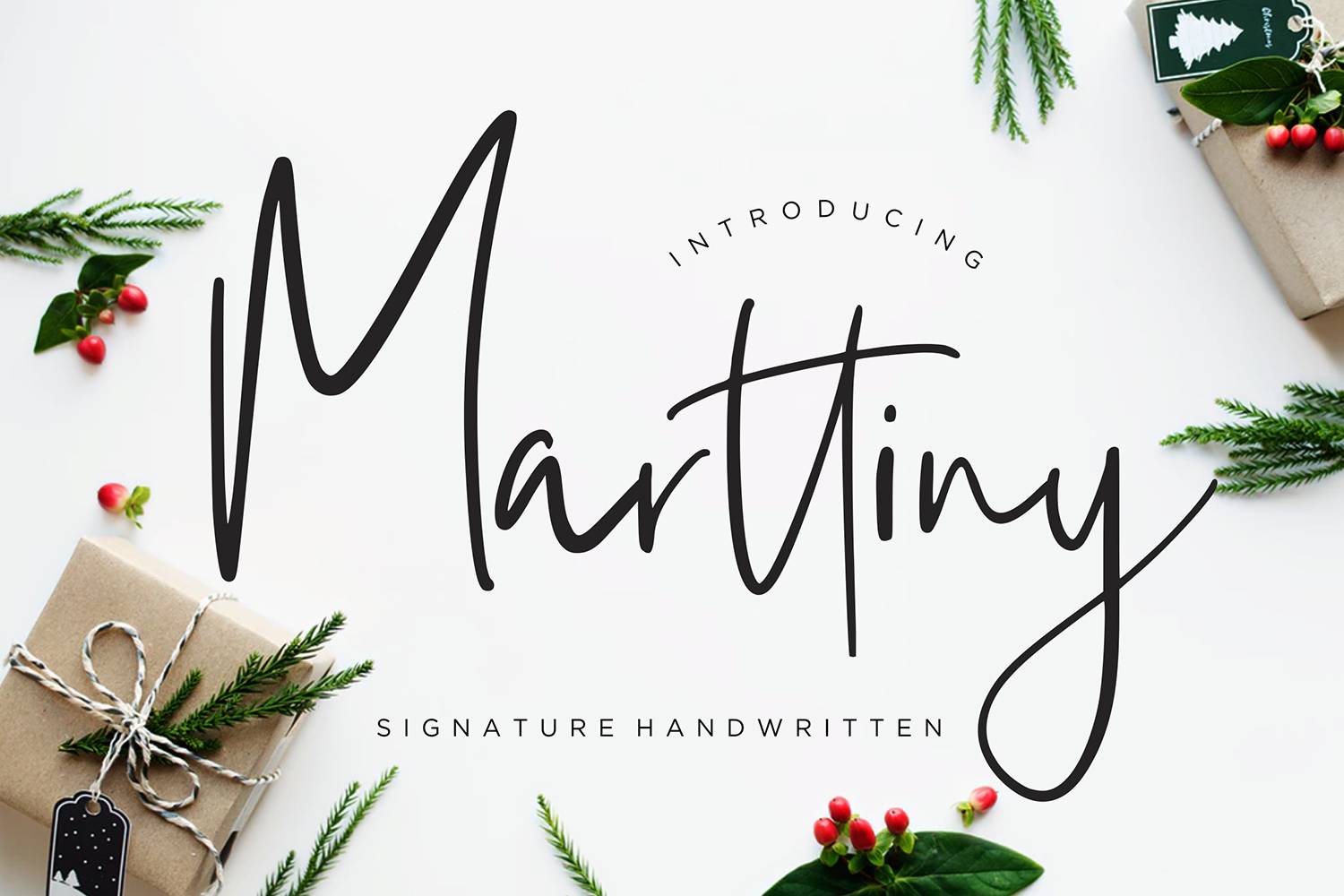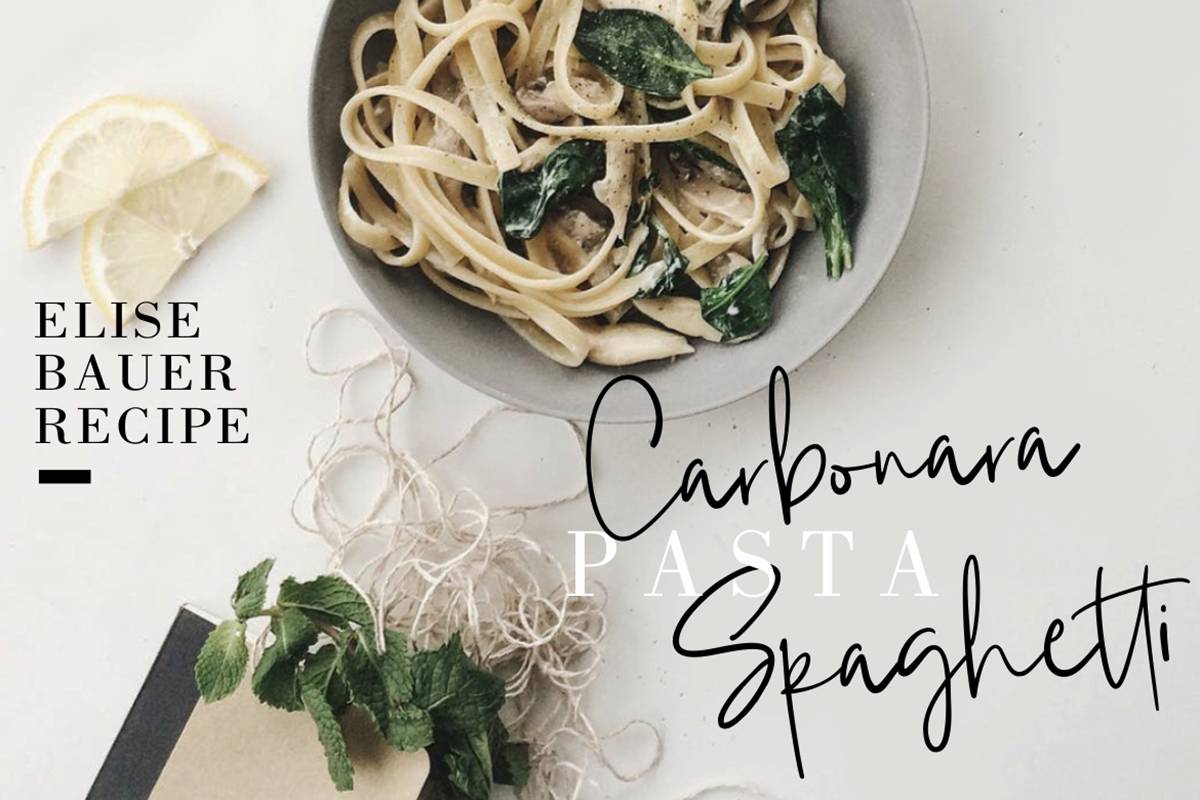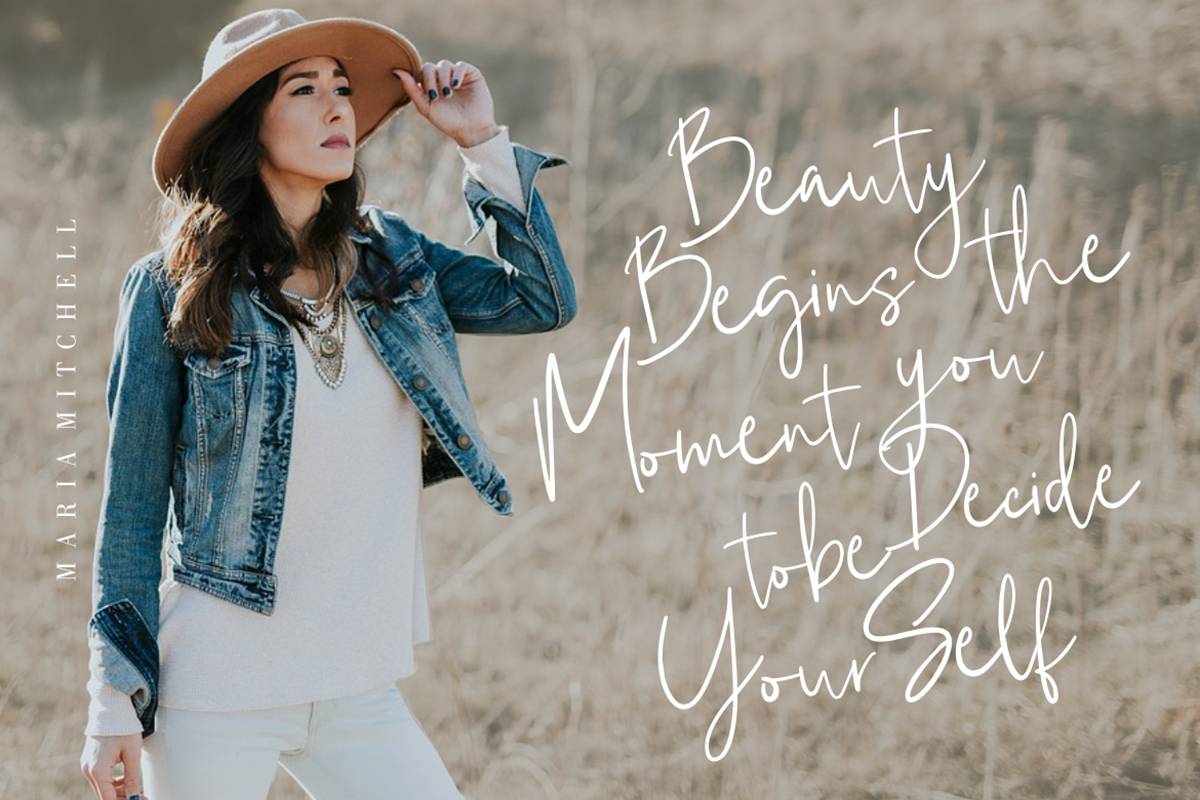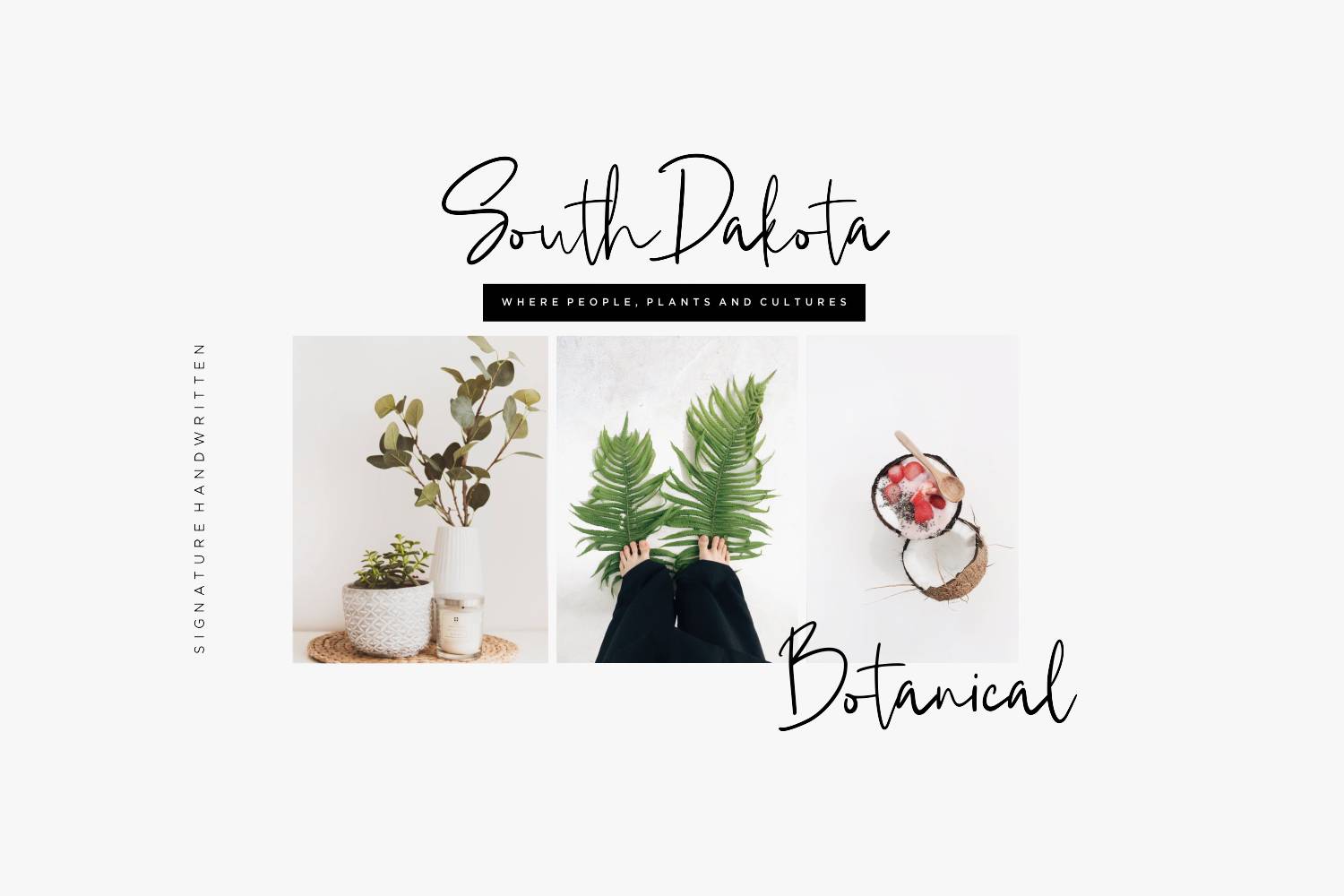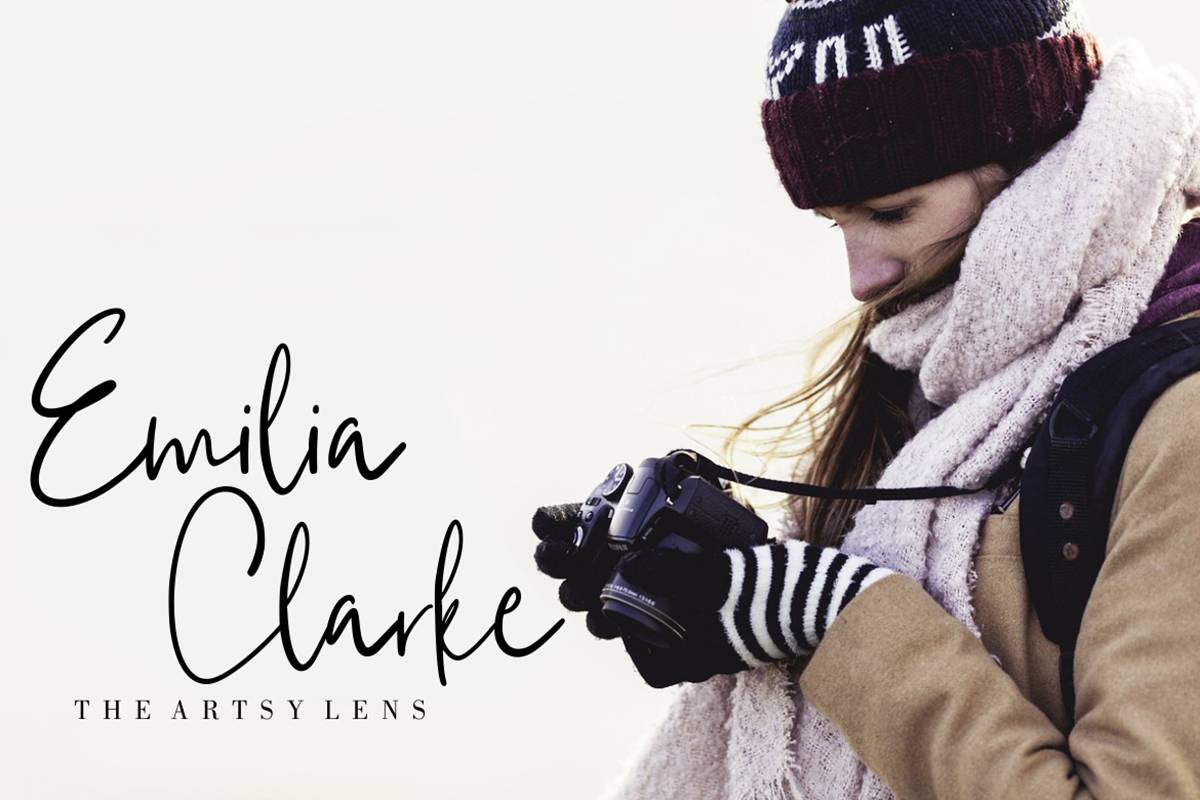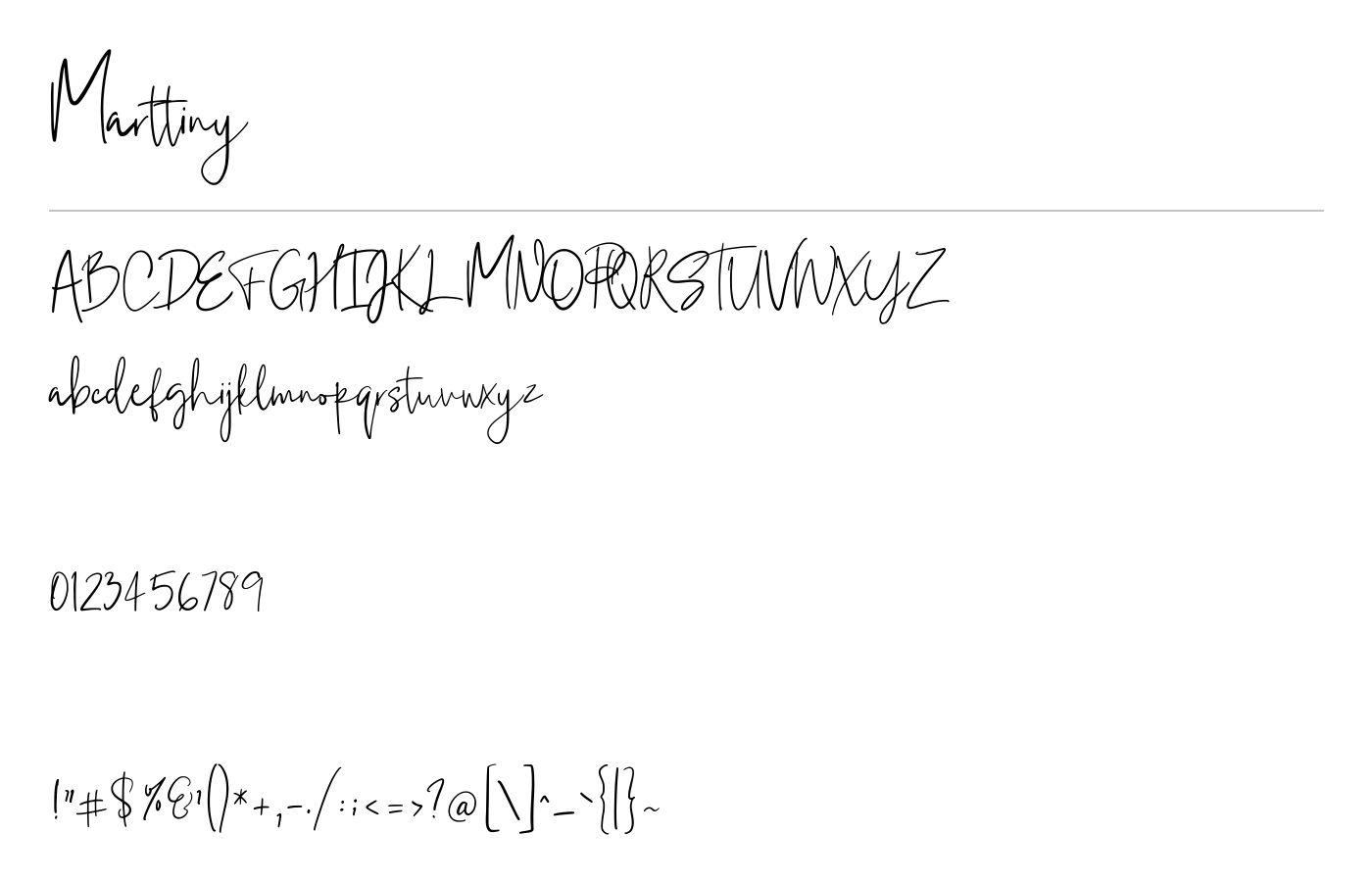
Marttiny is a delicate handwritten script font characterized by its tall, slender letterforms and fine, irregular strokes that convey a casual, personal touch. Its elegant yet playful style works beautifully for boutique branding, invitations, and creative projects where a light, airy, and approachable feel is desired. This font shines in designs that seek a blend of sophistication and friendly authenticity without overwhelming the layout.
Marttiny Font
About Marttiny Font